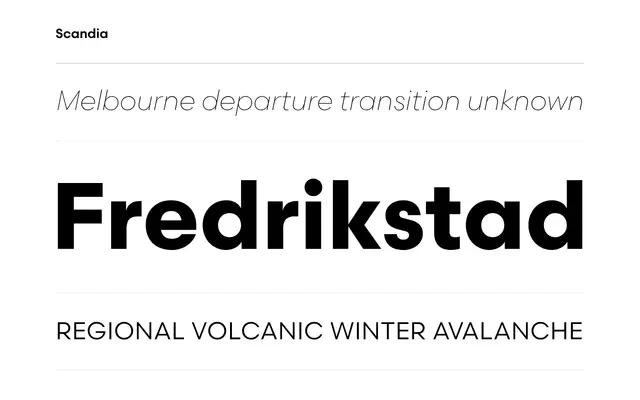
Scandia
Process Type Foundry · Eric Olson · 2015
A curve-led geometric sans by Eric Olson, related to the angular Scandia Line, with four weights, matching italics and a Bold stencil variant.
Where Scandia Line favours angles, Scandia opts for rounded, full-bodied curves that reference classic geometric sans designs. The family runs across four weights, each with a matching italic, and the Bold weight adds a stencil cut for display and signage applications. A set of stylistic alternates restores sharper corners on characters including A, M, N, V and W for those who want a harder geometric edge.
Scandia is explicitly described as geometric in reference to its classic geometric design nods, featuring lush curves over angular construction, placing it squarely in the geometric sans category.